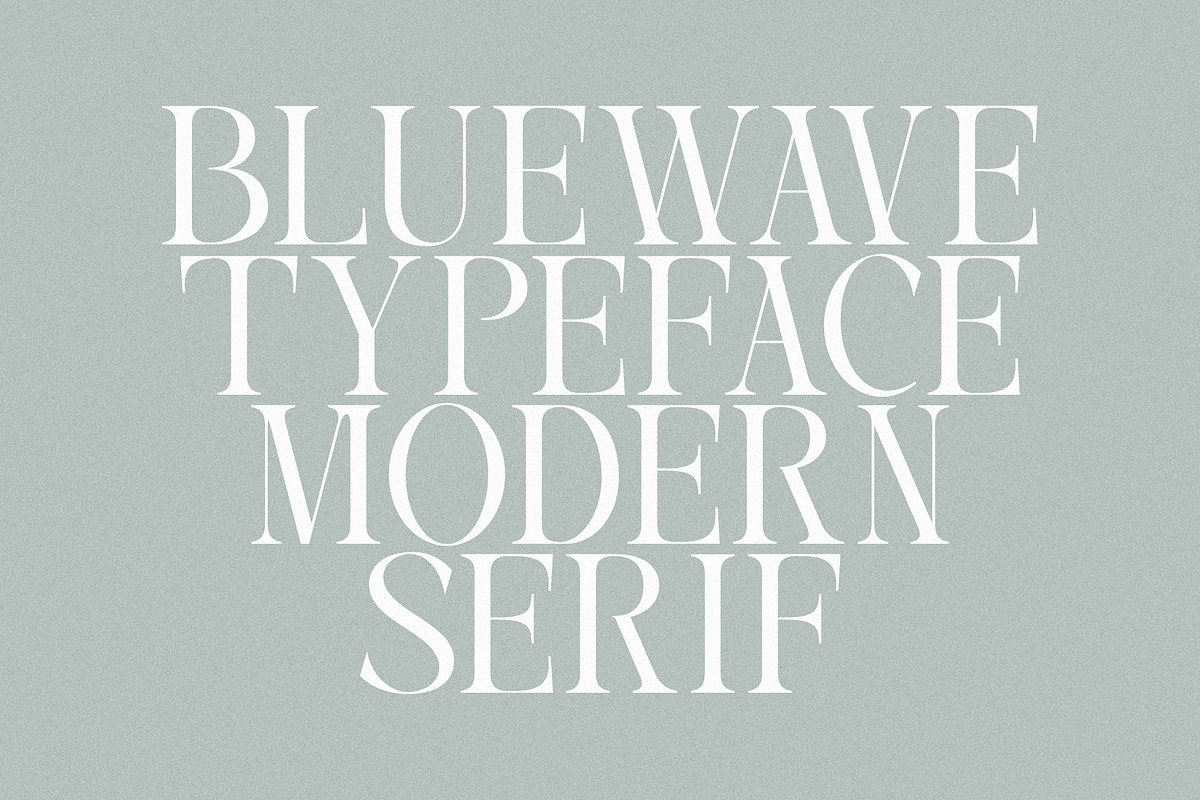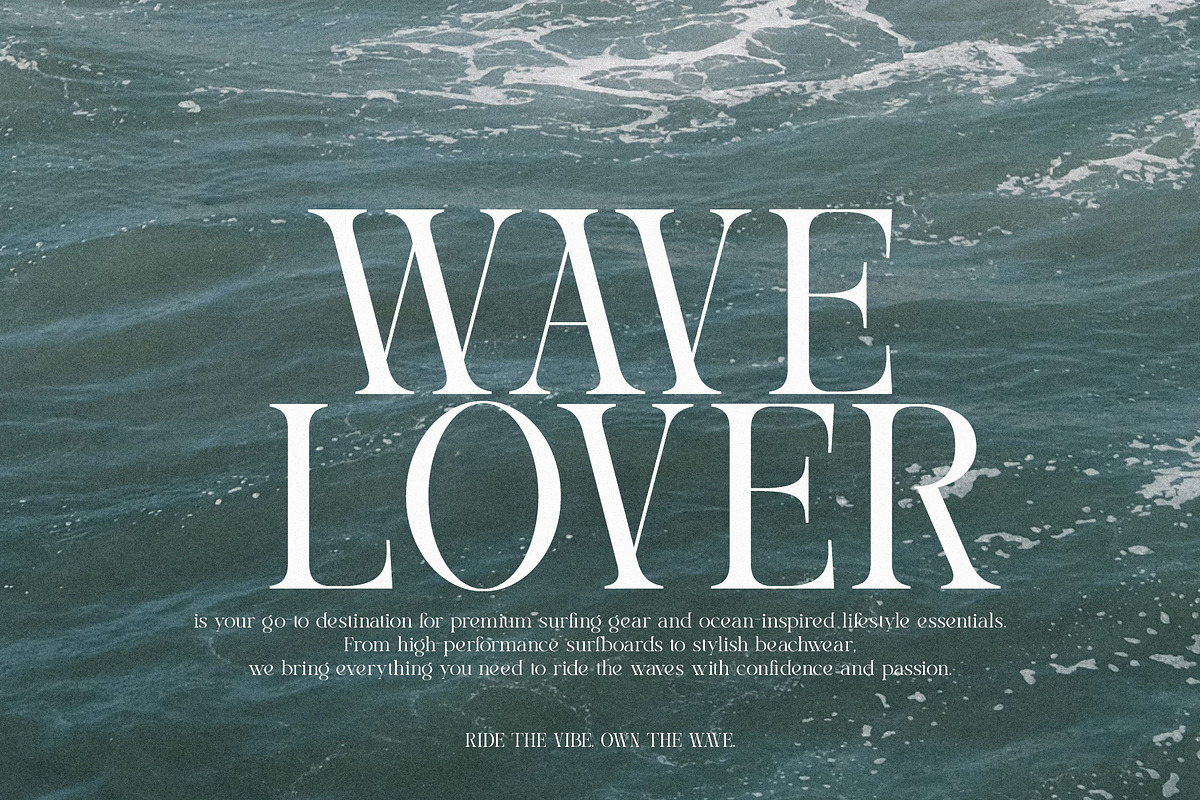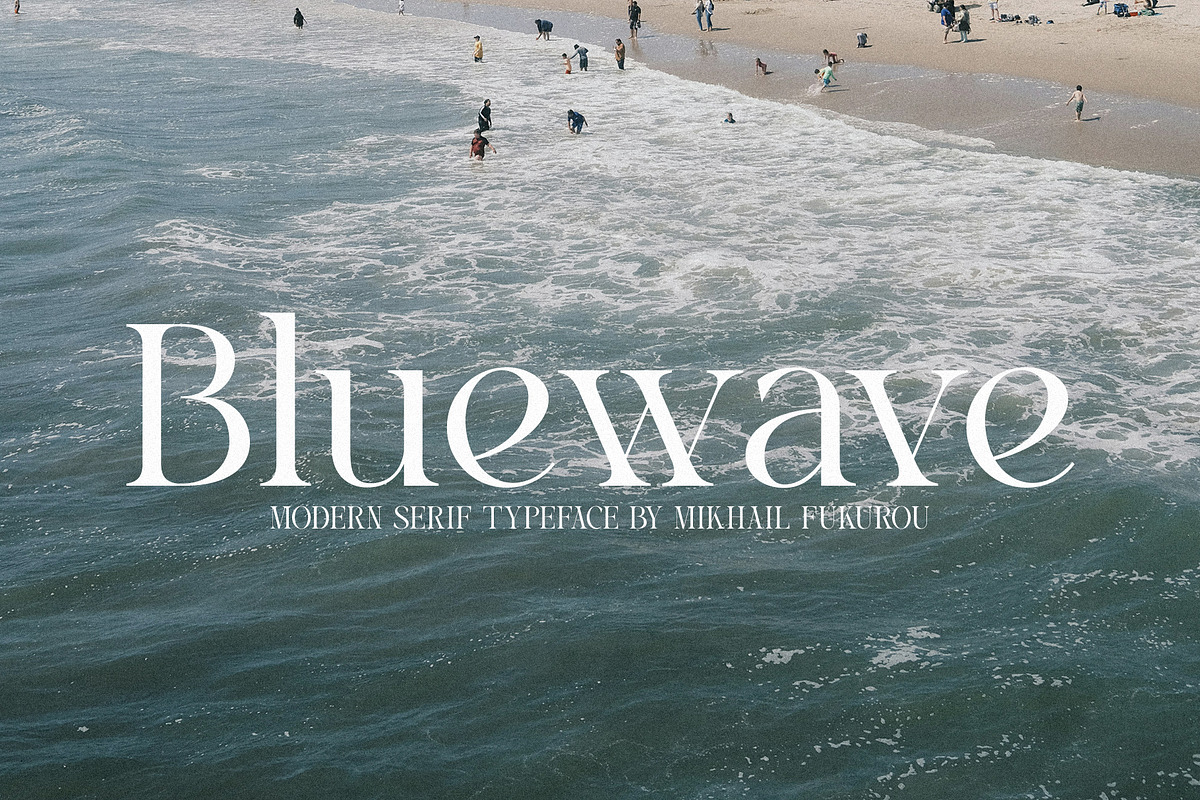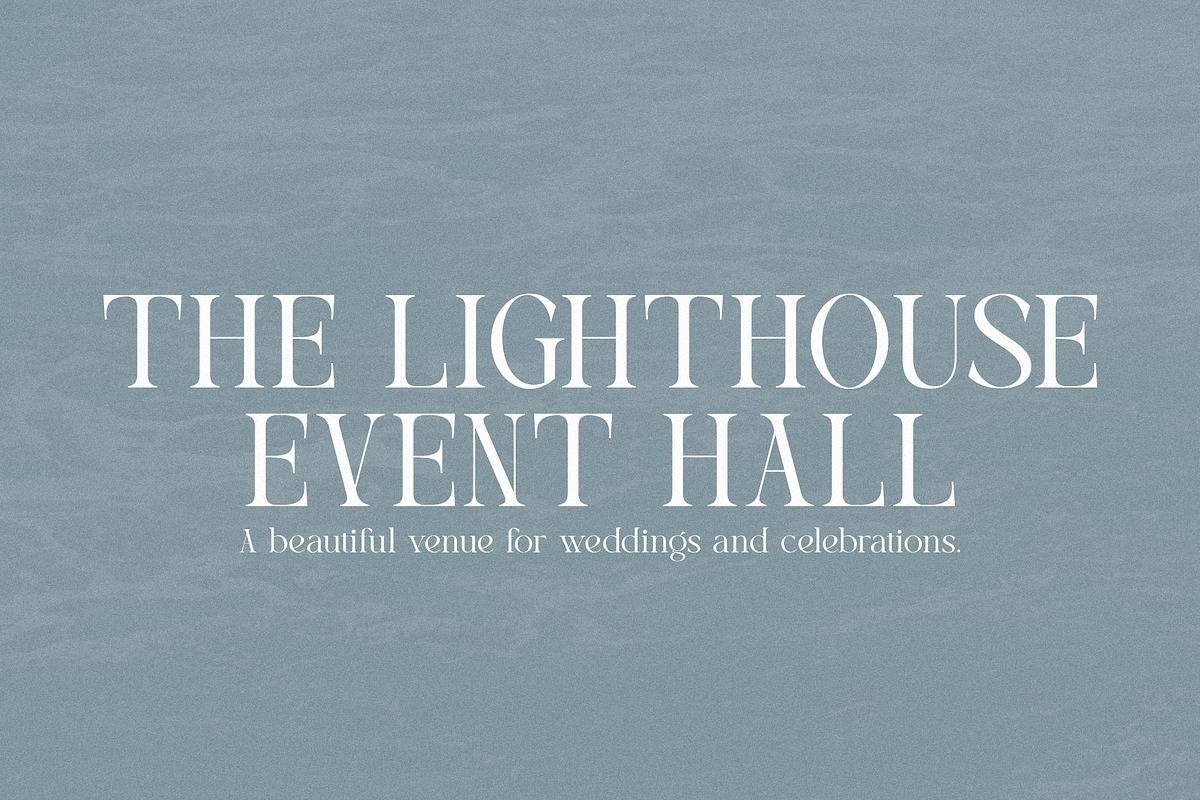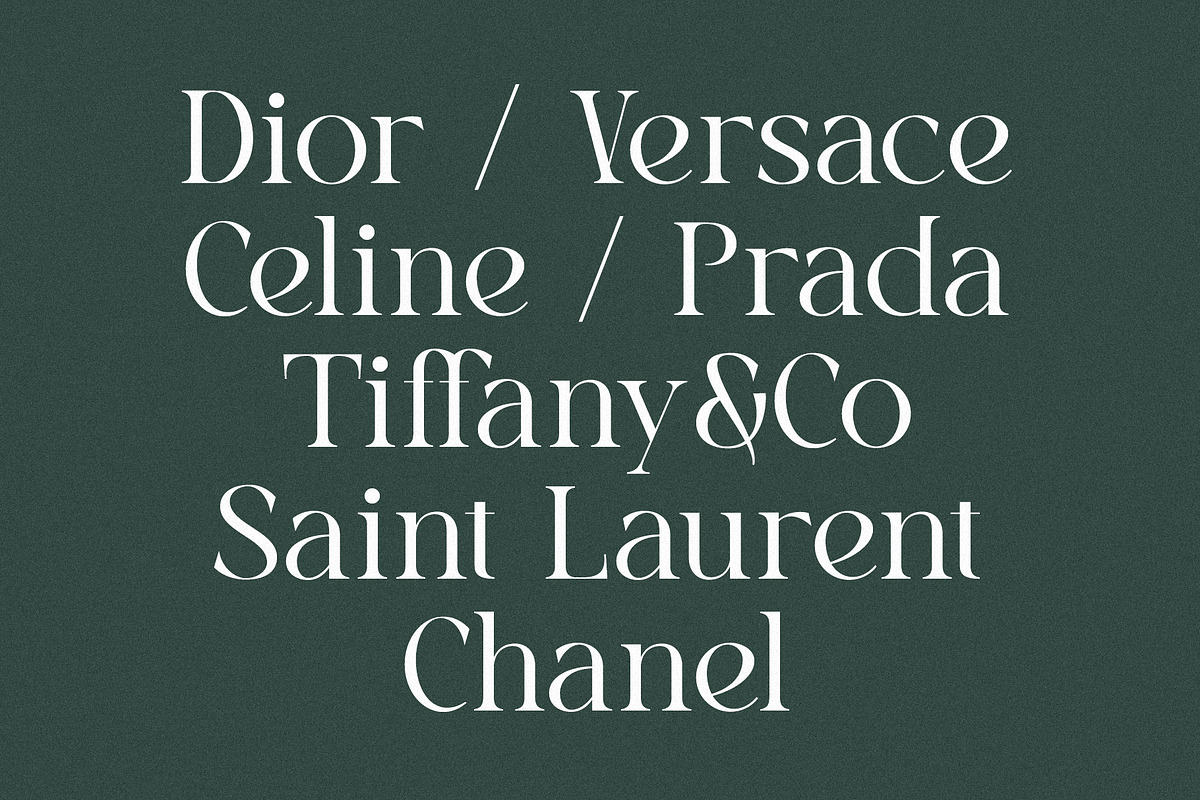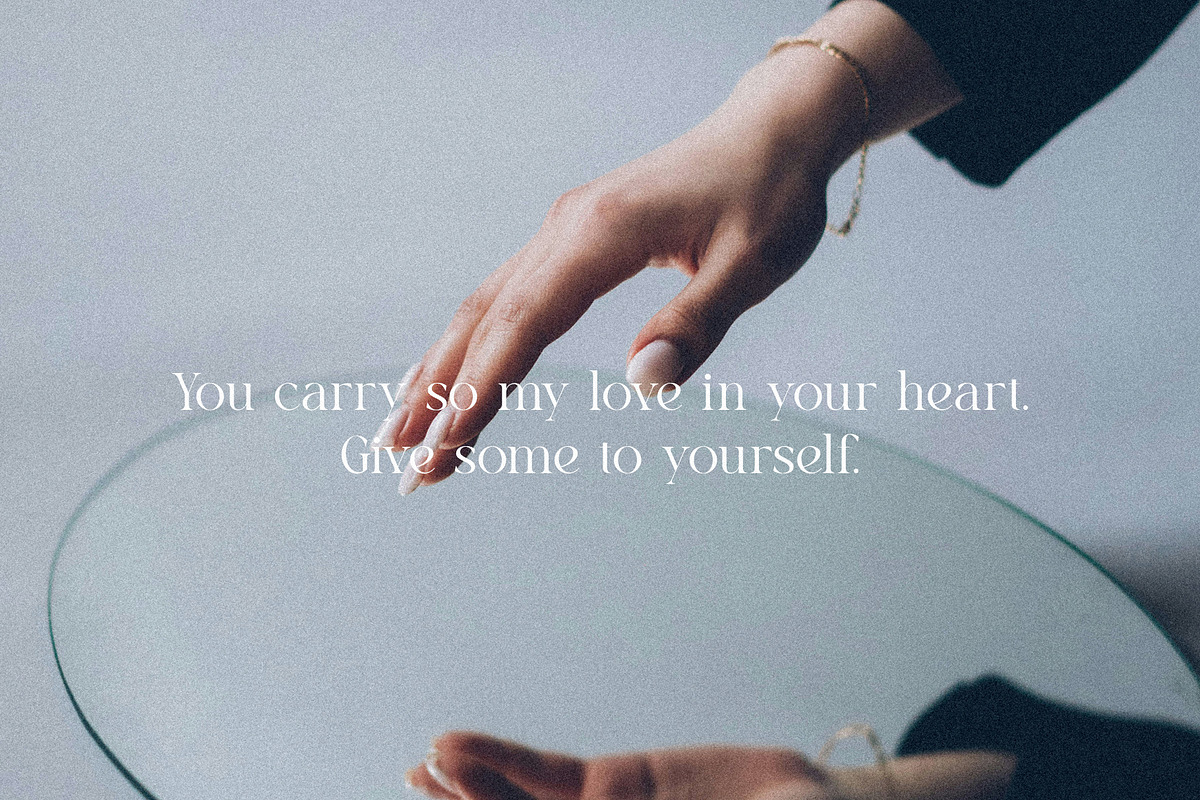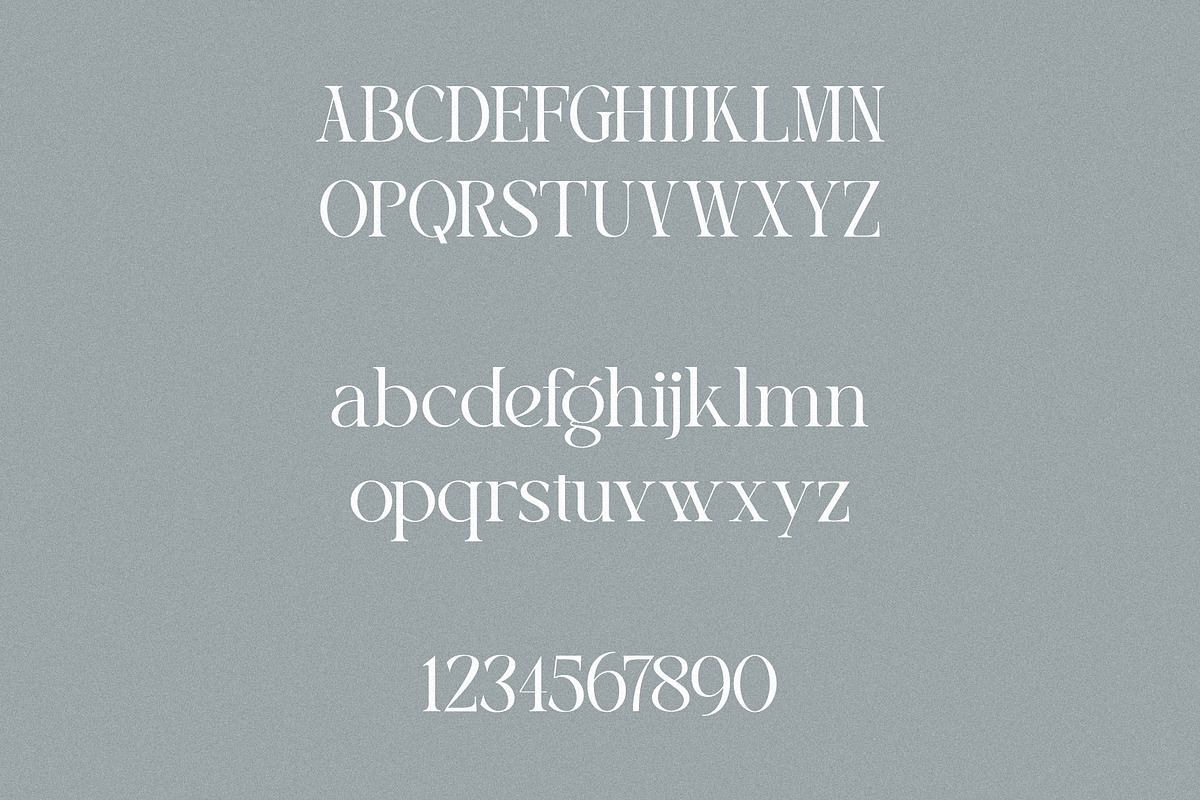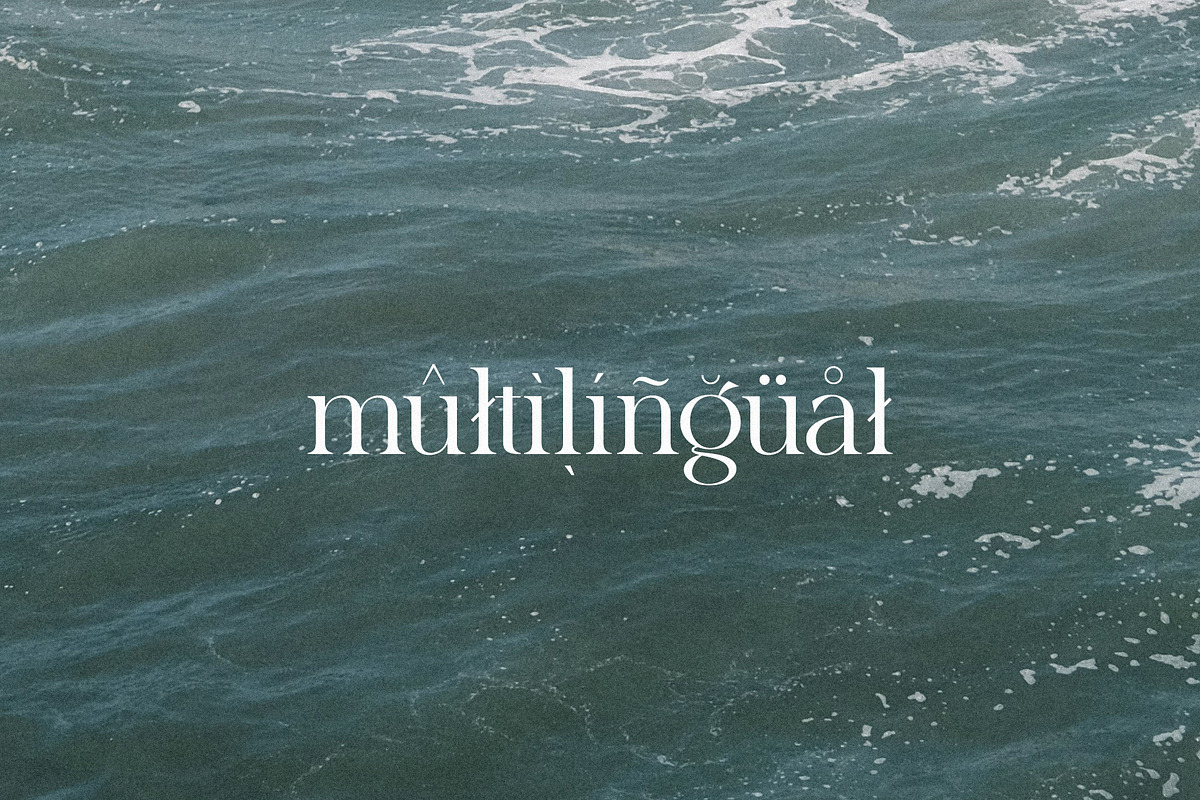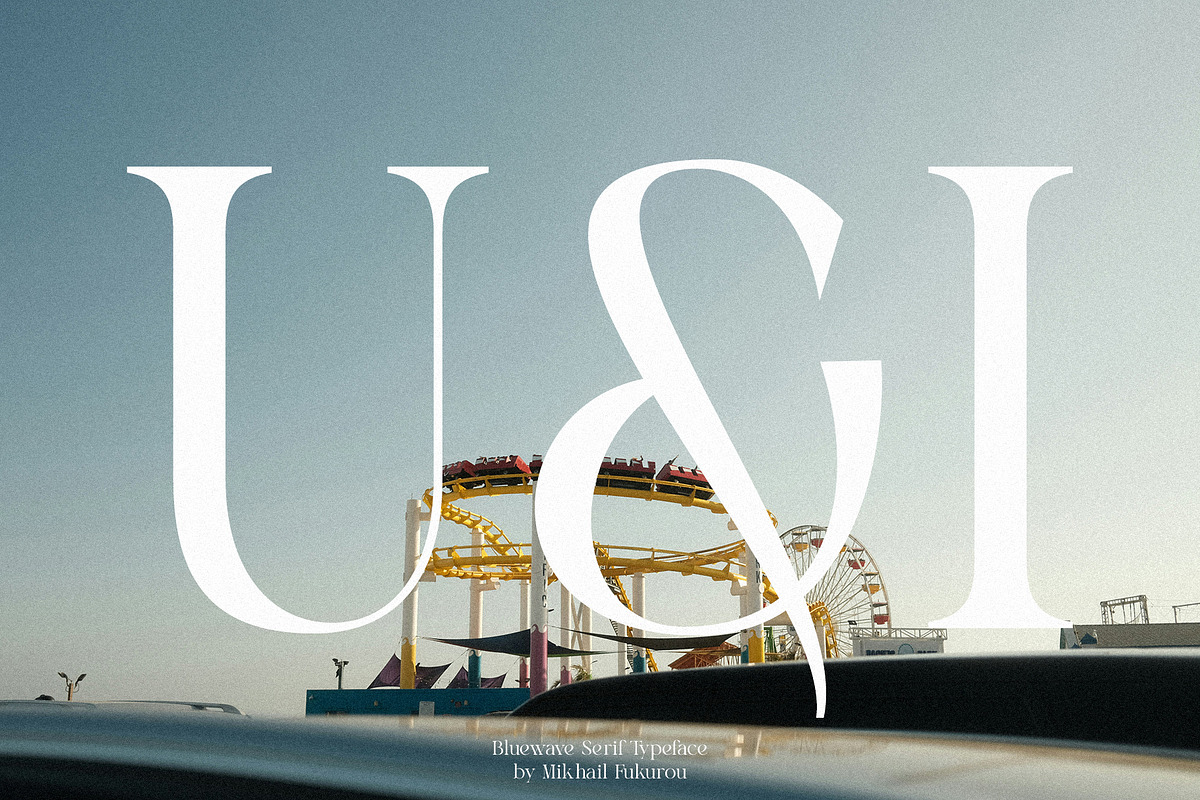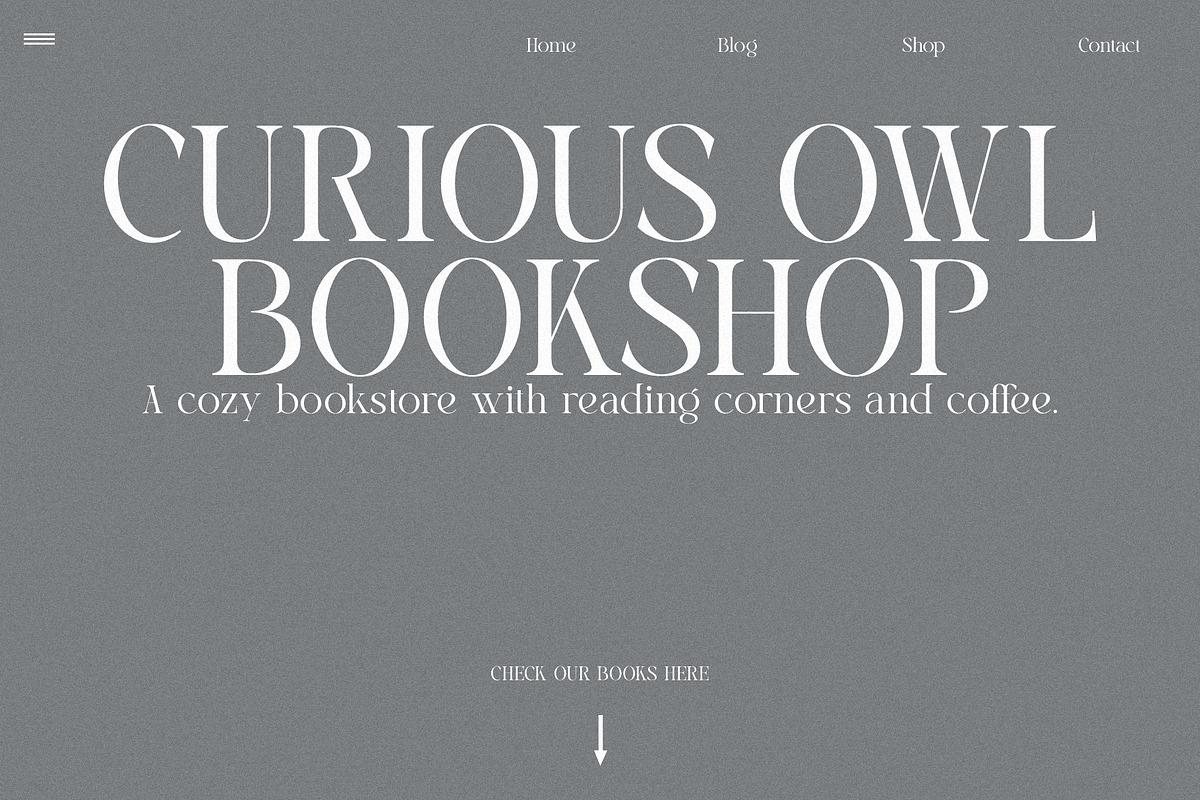
Bluewave - Modern Serif
Bluewave – Modern Serif is a refined typeface that blends timeless serif elegance with a fresh, minimalist edge. Features clean lines, balanced proportions, and subtle contrast that give it a sophisticated yet approachable feel. Its crisp letterforms and smooth curves make it ideal for both digital and print use, from branding and editorial layouts to websites and social media. Bluewave stands out with its modern character while preserving the classic charm of serif typography, making it a perfect choice for creators seeking a font that feels both stylish and enduring.